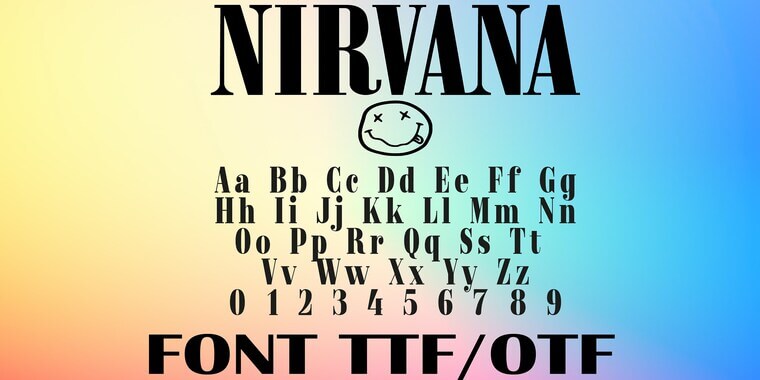
Nirvana was a famous American rock band that started in 1987 with singer/guitarist Kurt Cobain and bassist Krist Novoselic. They helped create the grunge music style in the early 1990s. Their popular songs like “Smells Like Teen Spirit” and “Come as You Are” are well-known for their intense music and deep lyrics.
The Textual Style used in Nirvana’s logo is called ‘Onyx’, and it was created by Gerry Powell.